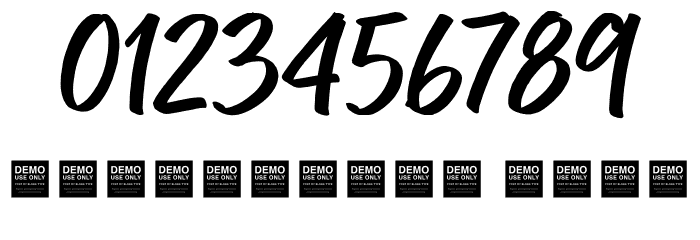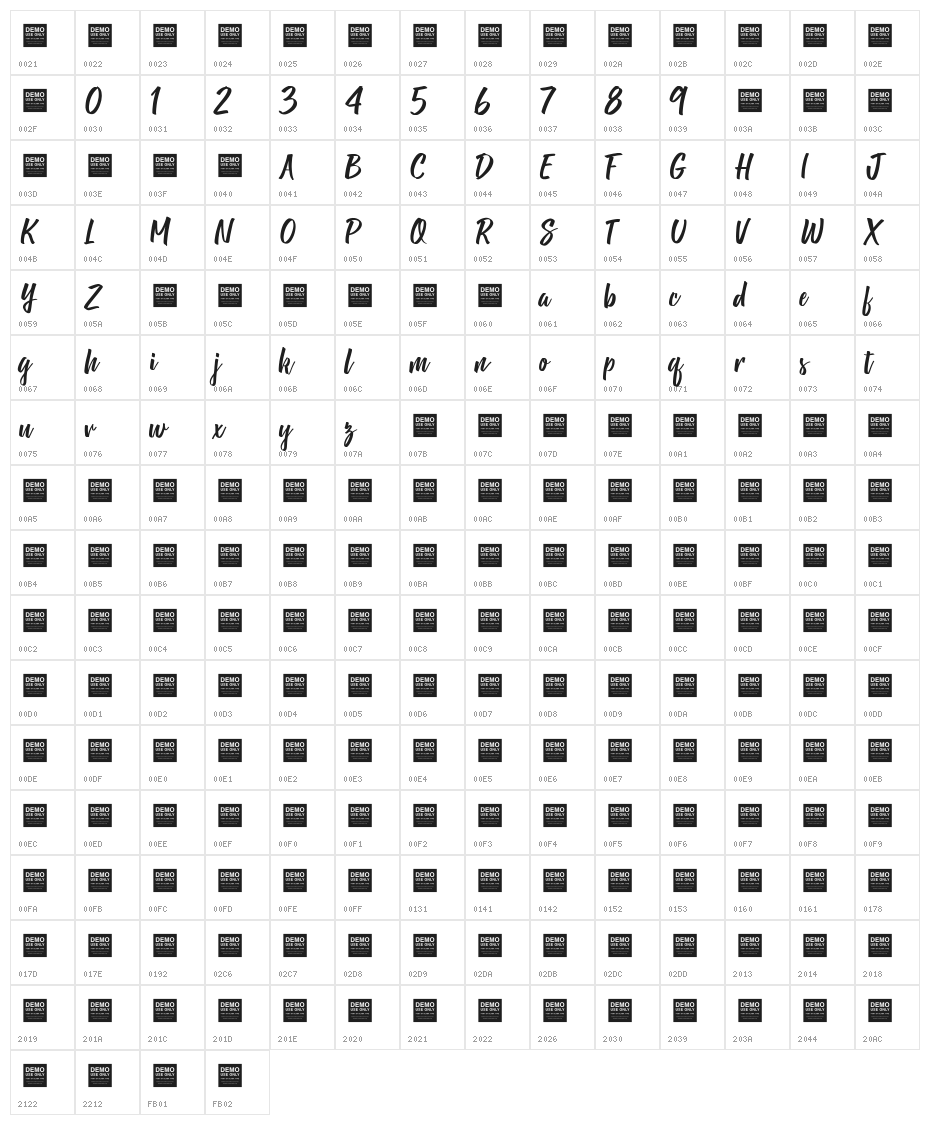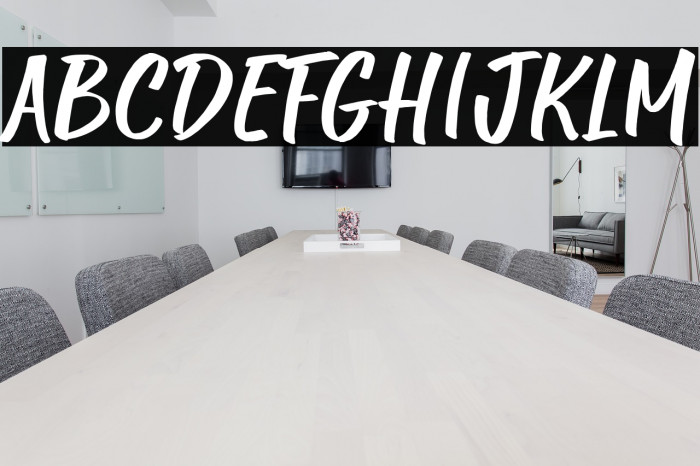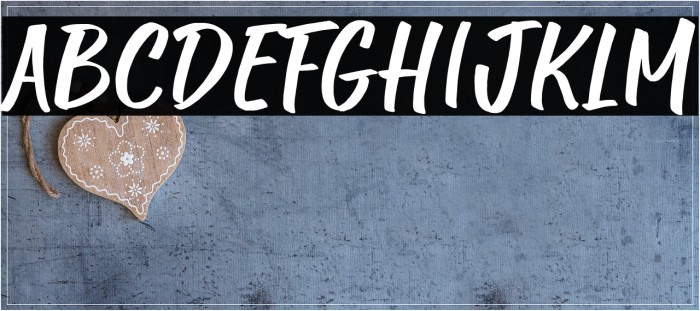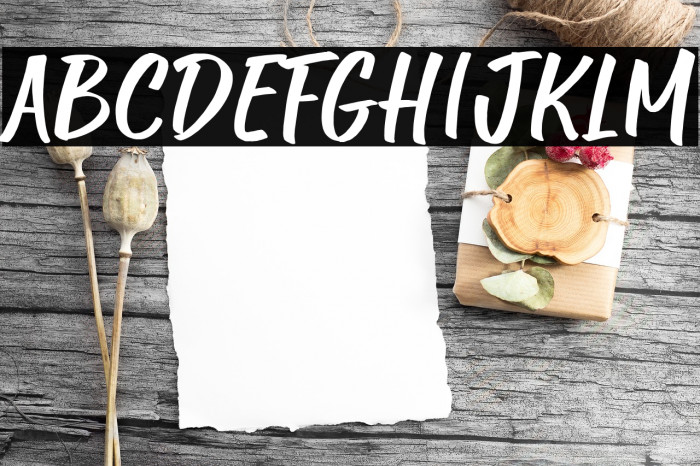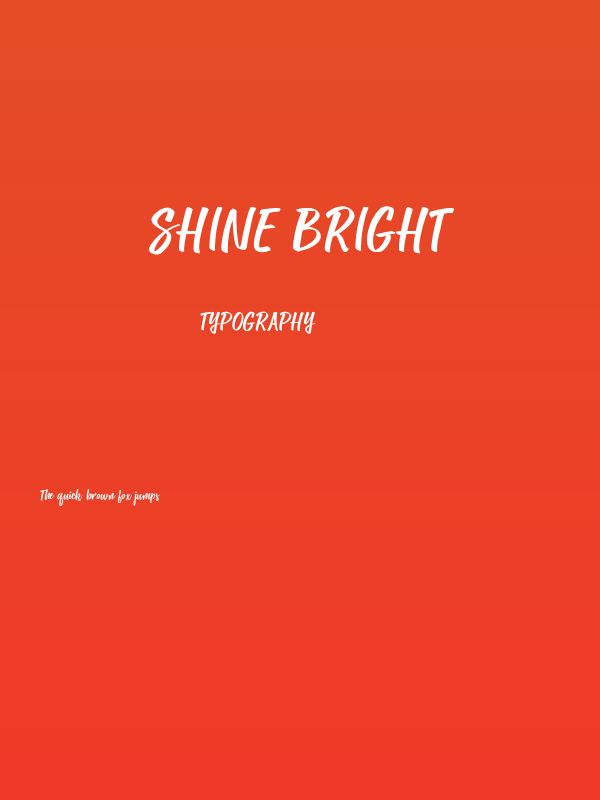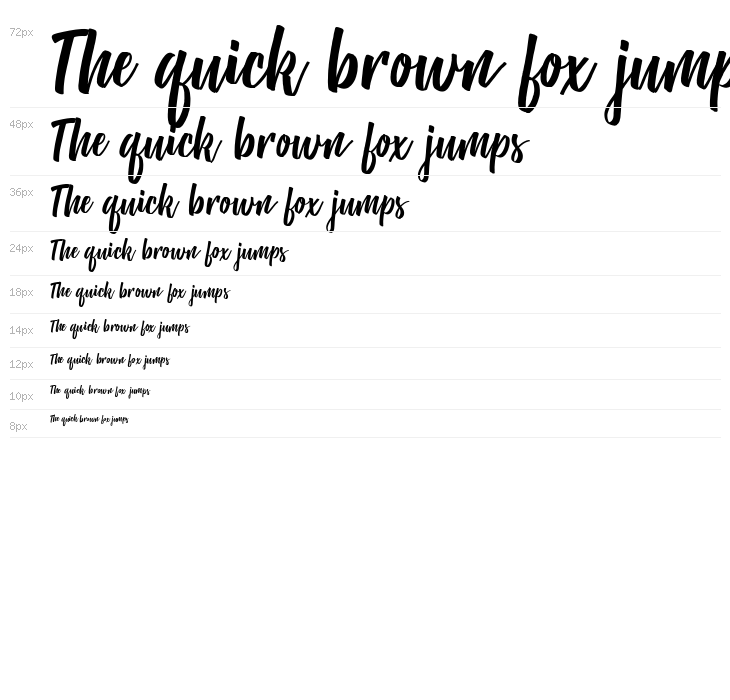
Shine Bright Font
Shine Bright Description
This font exhibits a lively and energetic script style, characterized by its bold, flowing strokes and dynamic curves. The uppercase letters are tall and slightly slanted, giving a sense of movement and flair. The lowercase letters maintain a consistent rhythm with a playful touch, featuring loops and swashes that enhance its handwritten appeal. Numbers are bold and clear, matching the overall aesthetic. The font's design is versatile, suitable for creating eye-catching headlines or adding a personal touch to branding materials. Its bold presence makes it ideal for projects that require a strong visual impact.